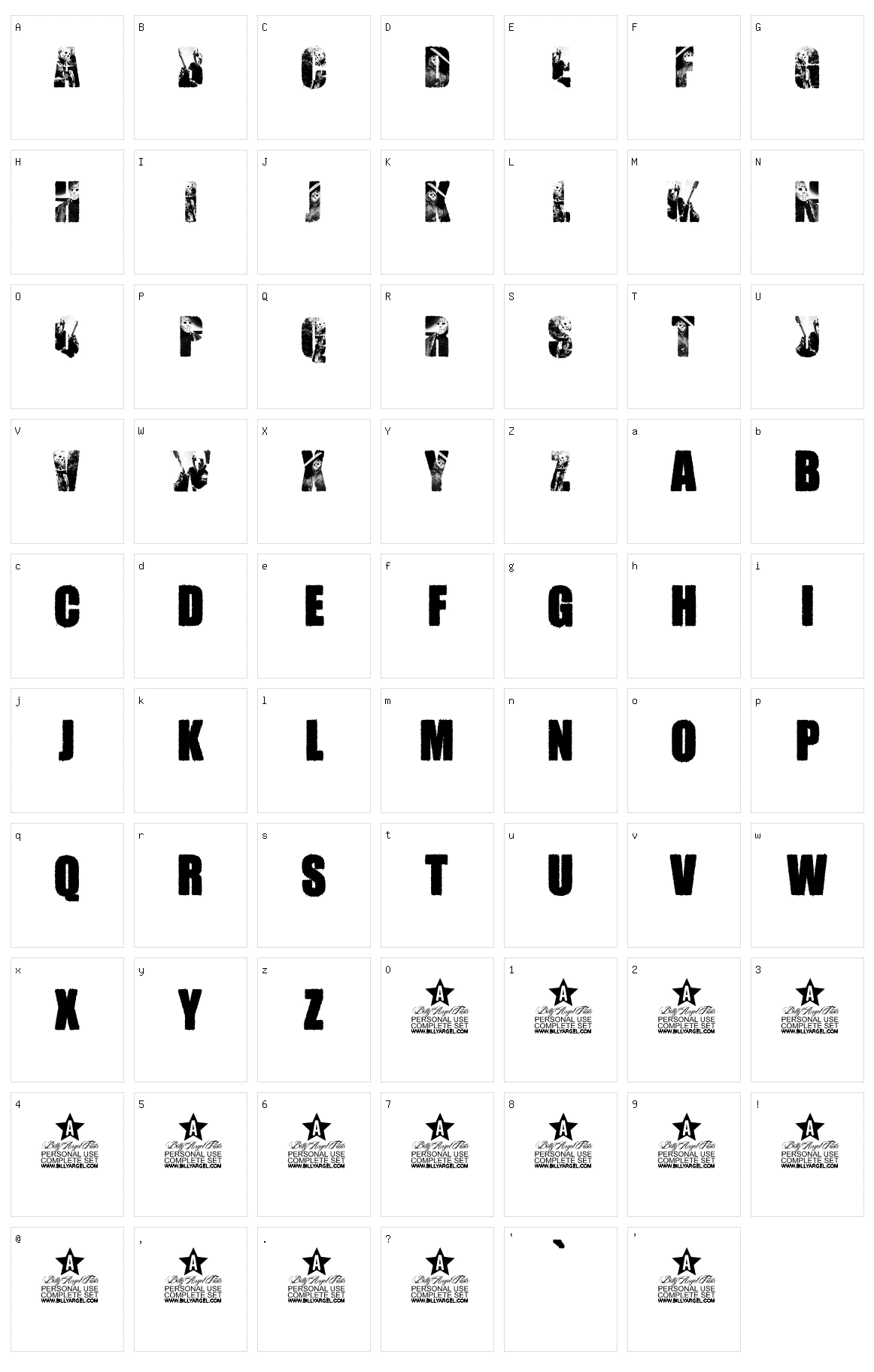
The free font Jason is carefully designed by Billy Argel Fonts ®, showcasing a thoughtful balance of creativity and usability and falls under the Horror font style. When you download the ZIP file, it contains only 7395.56 KB of font files, making it lightweight and quick to download. Please review the license details below to understand permitted usage and distribution rights. If license information is not available, we recommend using this font for personal projects only or contacting the author directly for commercial usage permissions.